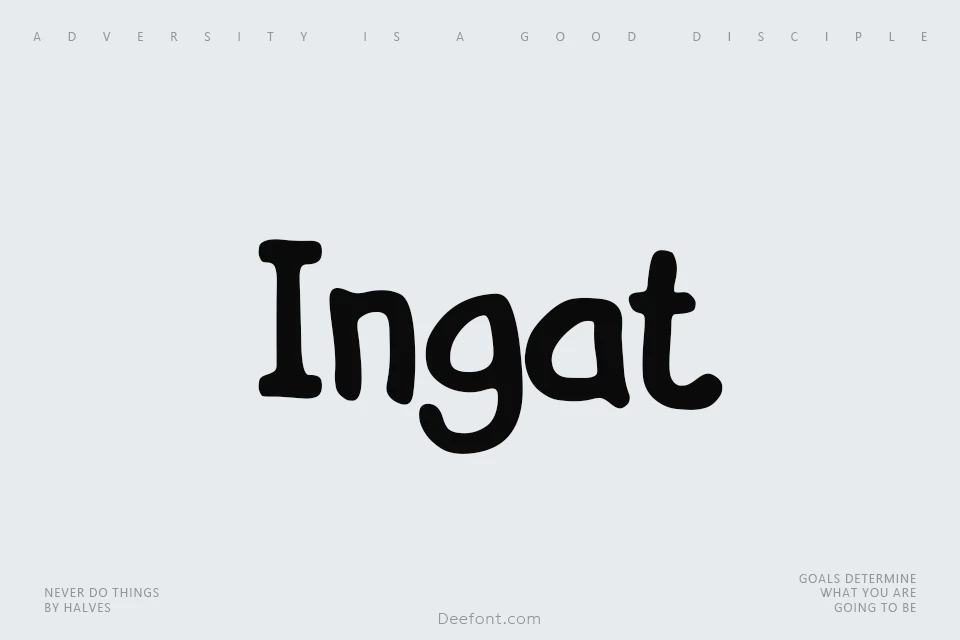
Ingat Font
Ingat Font is a friendly looking handmade typeface, one that is appropriate for many design categories, most notably children’s designs. This is a highly legible and casually styled font that will add joy to your creative projects.